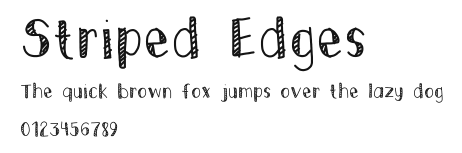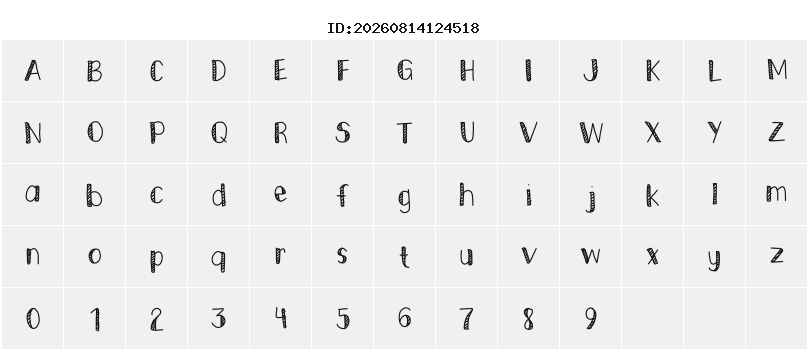
• Font Name: Striped Edges
• Full Font Name: Striped Edges
Striped Edges.ttf is a modern, elegant sans-serif font designed for ultimate readability and visual harmony. Perfect for branding, headlines, web design, and print materials.